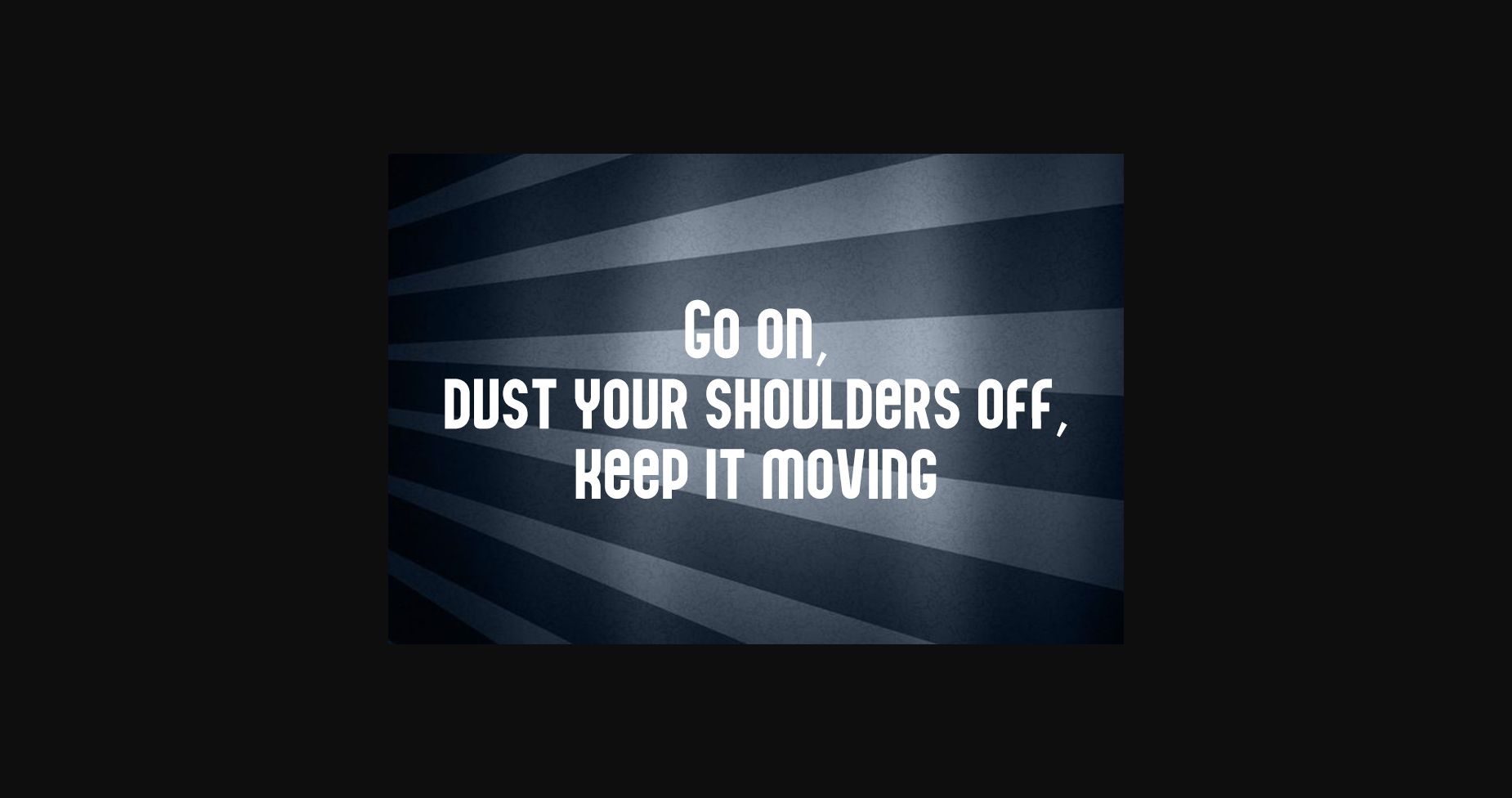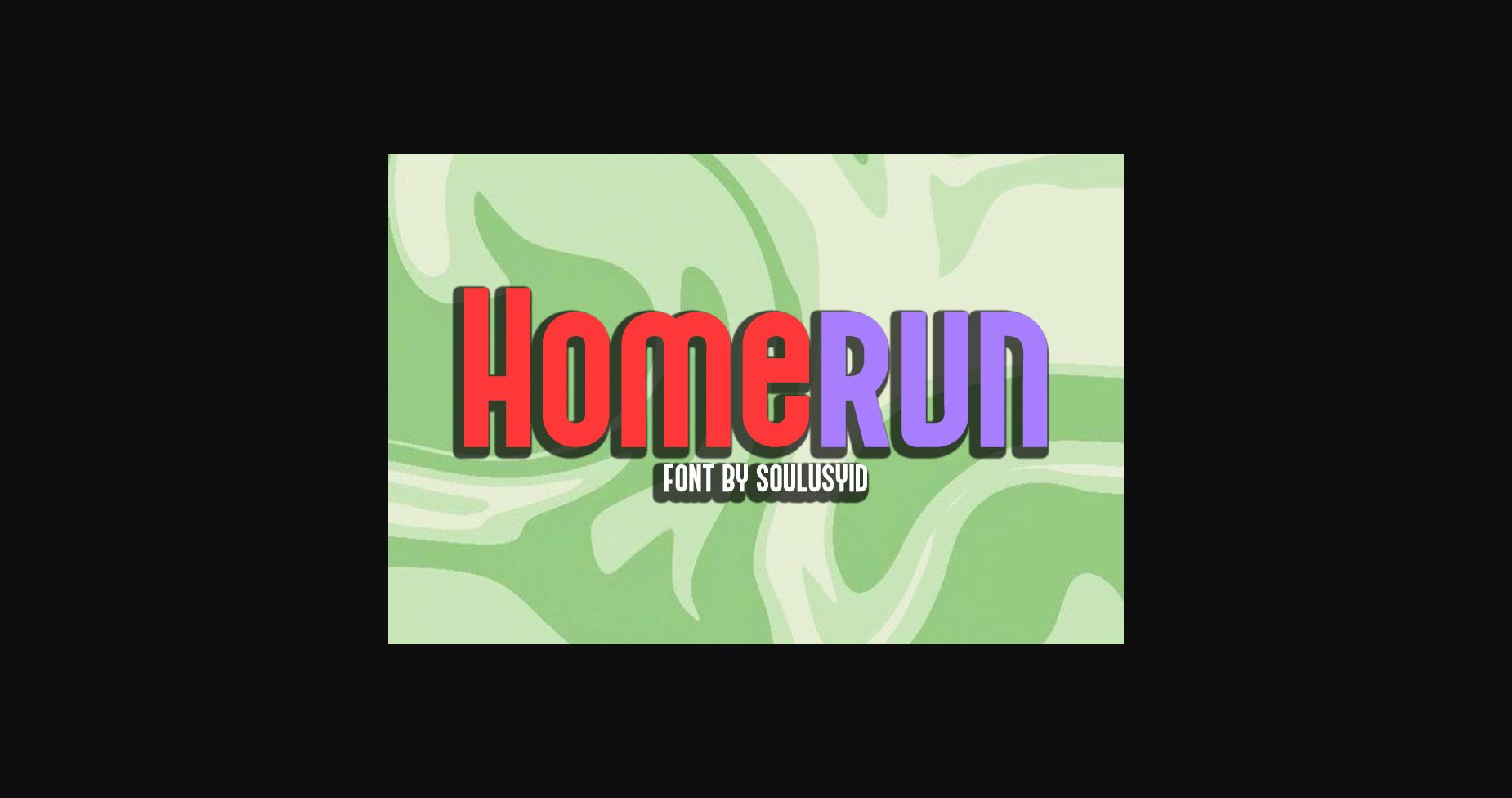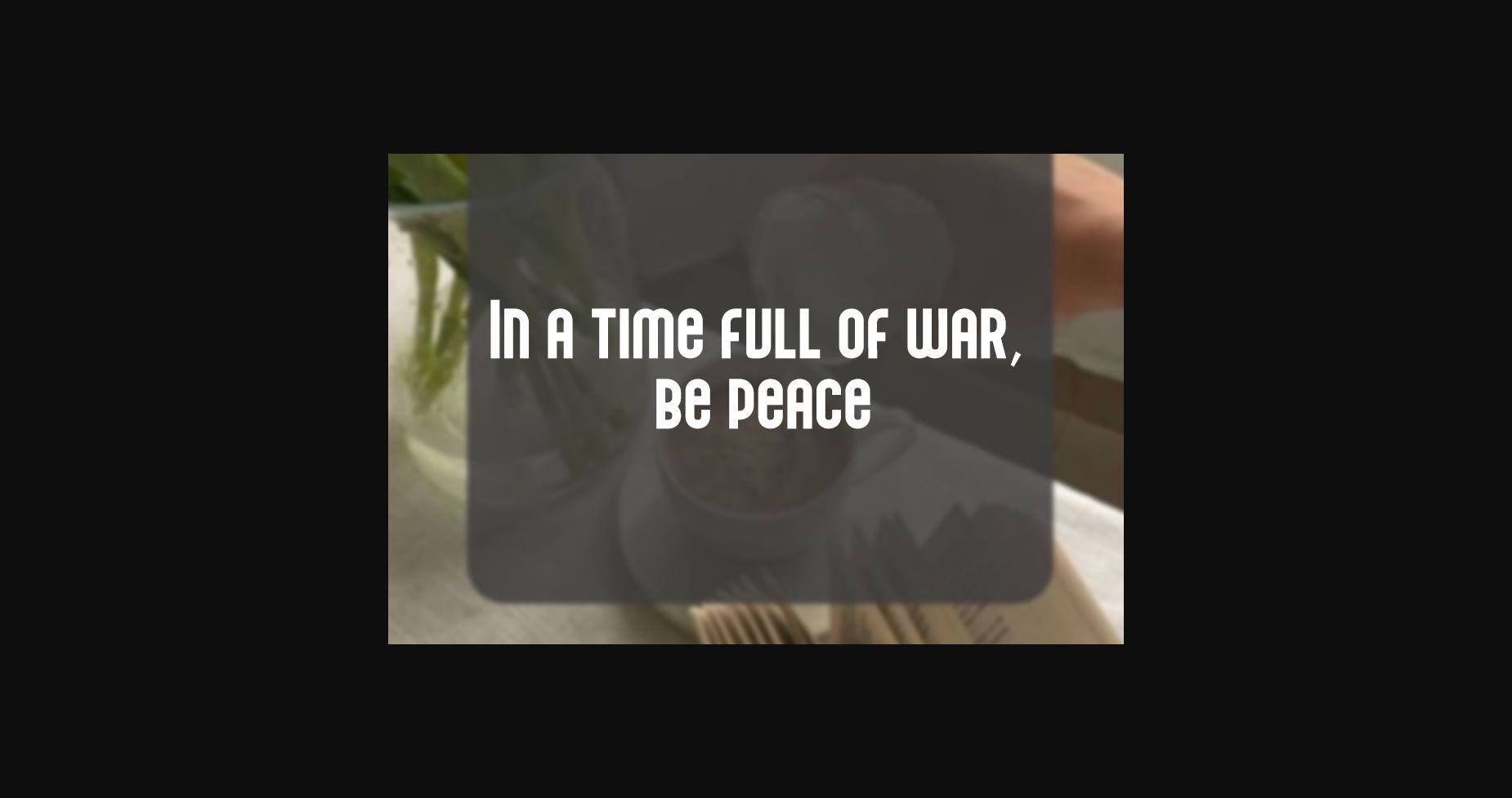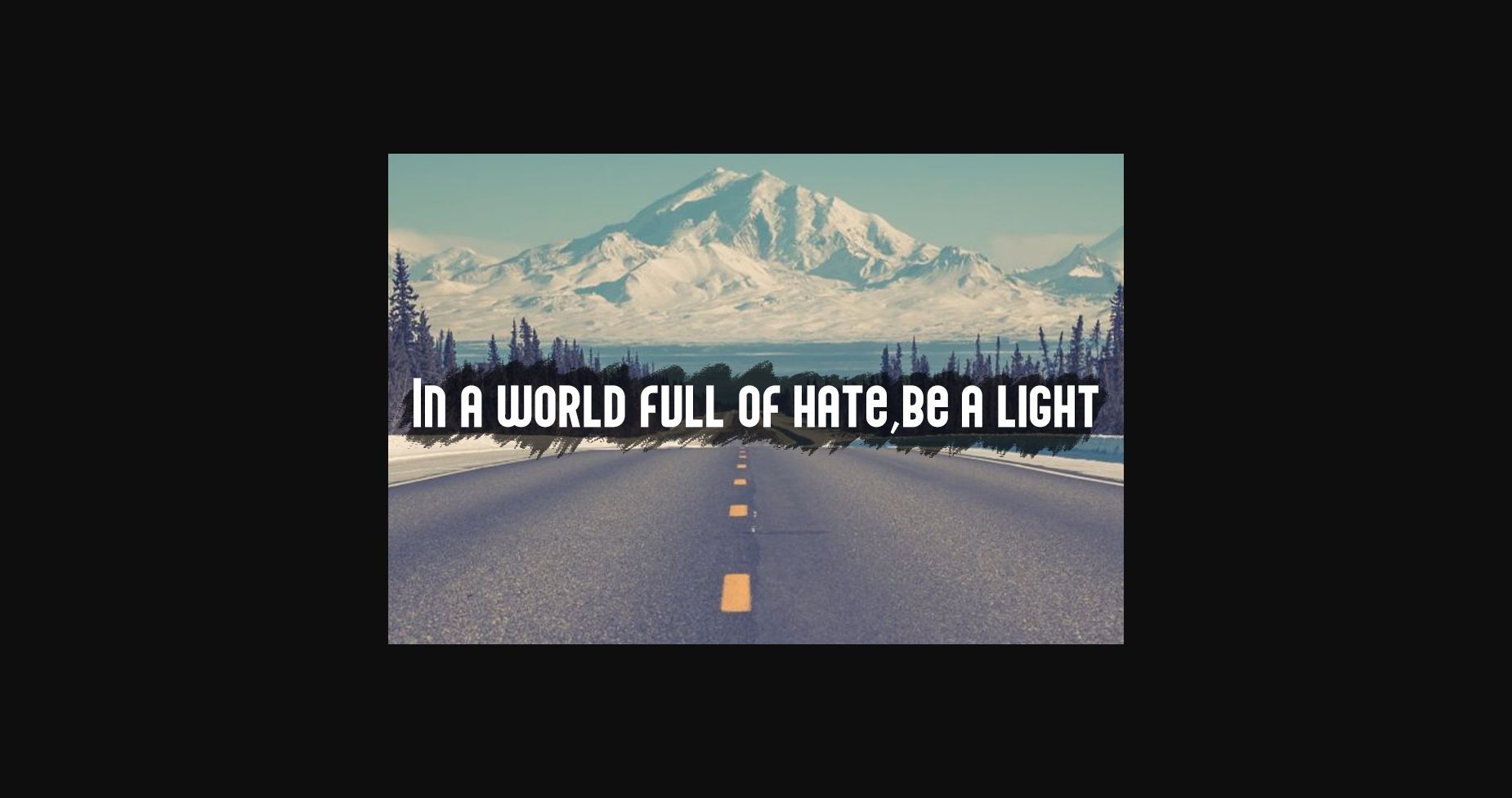
HomeSans Serif FontsHomerun Font Sans Serif Fonts Homerun Font FacebookXPinterestWhatsApp 1 of 6 ... Homerun Font Poster 2... Homerun Font Poster 3... Homerun Font Poster 4... Homerun Font Poster 5... Homerun Font Poster 6... About Homerun Font Homerun is a modern, bold, and imposing sans-serif font, perfect for creating a powerful and sophisticated look. Its sharp edges and sleek lines make it dynamic and eye-catching. A great choice for any project. DOWNLOAD NOW People also explored Daydreami Monggirella Font George Font Makaila Ashlyn Font Sothardjo Font Birthday Font Rustic Pantry Font Billion Font Love Side Font 285 0 TagsHomerunHomerun Font Previous articleTauha FontNext articleKarviet Font LEAVE A REPLY Cancel reply Comment: Please enter your comment! Name:* Please enter your name here Email:* You have entered an incorrect email address! Please enter your email address here Website: Save my name, email, and website in this browser for the next time I comment. Personal Use Free Anders Personal Use Free Read more about this font Americana Personal Use Free Read more about this font Loving Personal Use Free Read more about this font Round Geometric Personal Use Free Read more about this font BLOG How to Cut Any Font on Cricut: Convert a Font to SVG (Free) Turn any font into a clean SVG so it cuts crisp on Cricut - a quick 3-step workflow using a free font-to-SVG tool. Free Fonts Risk: Why Free Fonts Can Be Dangerous for Designers Fonts That Capture the Spirit of New York City Transform Your Website: Elevate Your Typography with 7 Best Web Font Generators